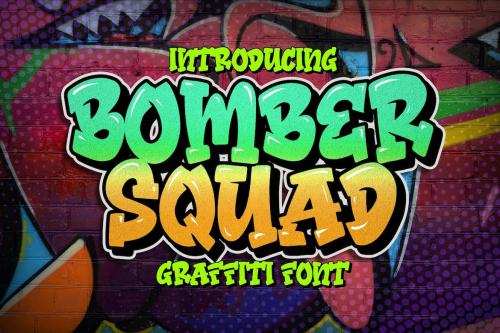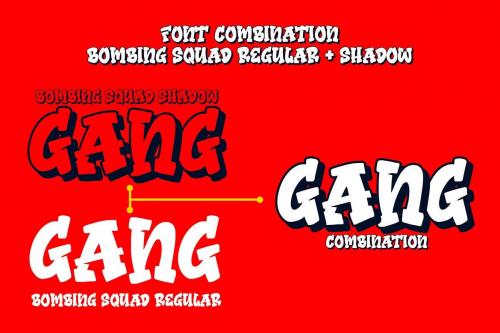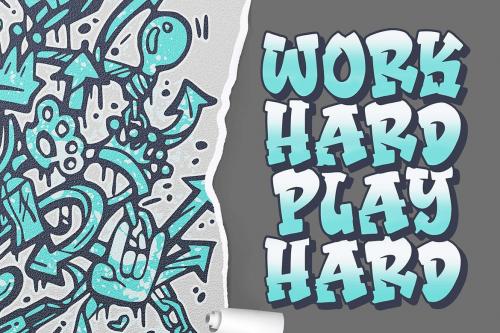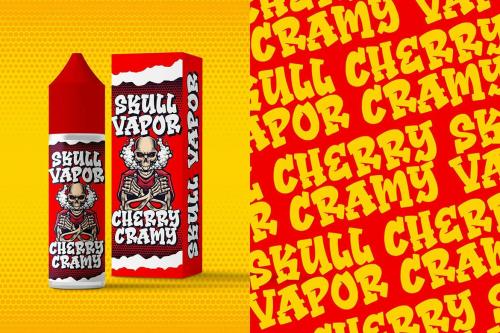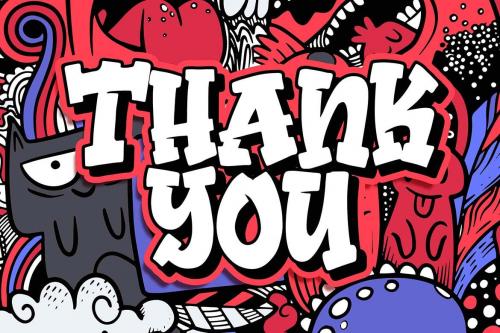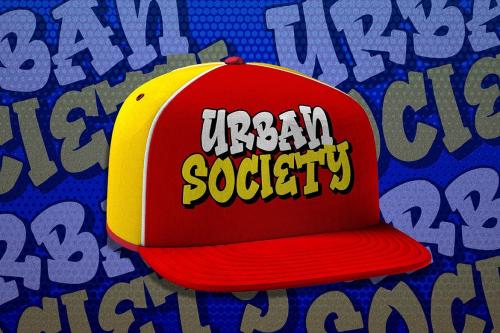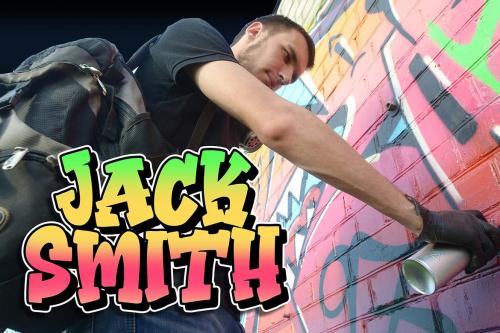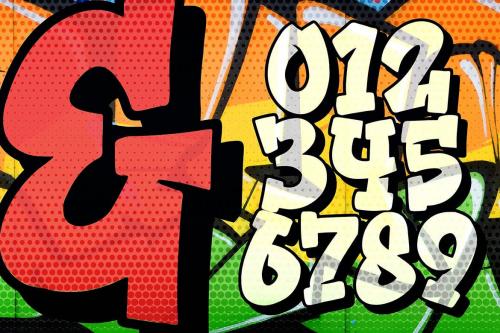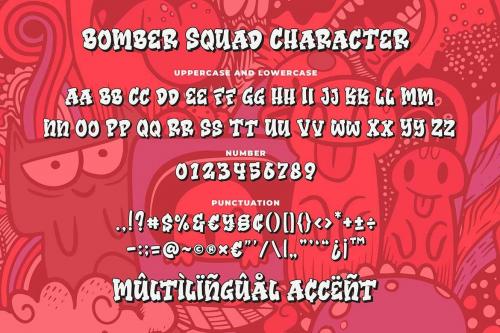
Bomber Squad Graffiti Font
Introducing of our new product the name is Bomber Squad Graffiti Font inspired by graffiti style with a fun theme very good for graffity poster, Hip Hop music, kids poster, flyer, childrenbook, cartoon, comic etc
**MULTILINGUAL ACCENT :**
ØÆøæ¢ÐŒœÁĂÂÀÄĄÅÃǼĆČÇĈĊĎÉĔĚÊËĖÈĘĞĜĢĠĤÍĬÎÏİÌĮĨĴĶĹĽĻĿŃŇŅÑÓŎÔÖÒŐǾÕŔŘŖŚŠŞŜȘŤŢÚŬÛÜÙŰŲŮŨẂŴẄẀÝŶŸỲŹŽŻáăâäàąåãǽćčçĉċďéĕěêëėèęğĝģġĥíîïìįĩĵķĺľļŀńʼnňņñóŏôöòőǿõŕřŗśšşŝșťţŭûüűùųůũẃŵẅẁýŷÿỳźžż
**FEATURES :**
* Uppercase
* Lowercase
* Number
* Punctuation
* Multilingual
* PUA Encode
* Opentype